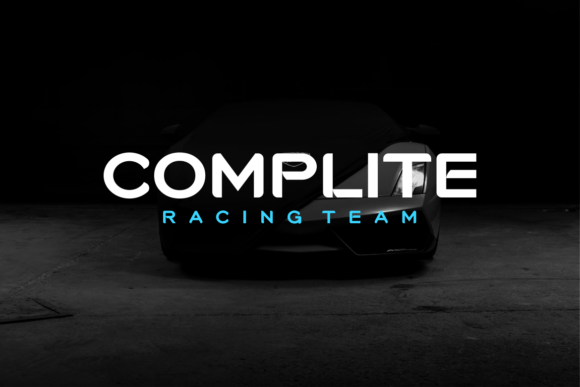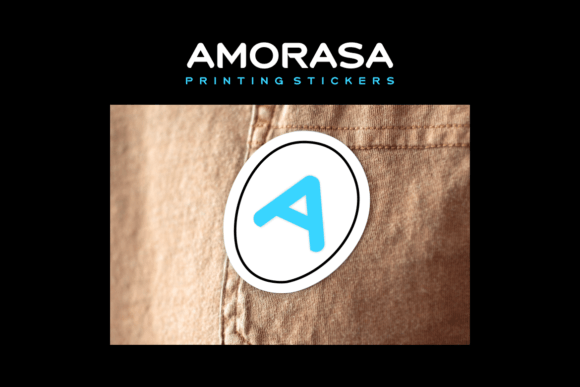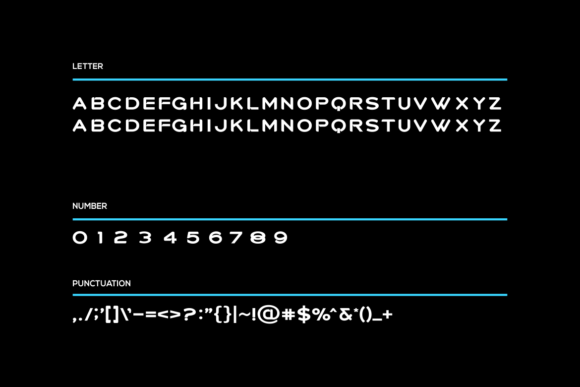
Badeq Font: The Ultimate Asset for Designers and Crafters
Are you tired of using fonts that are cluttered and difficult to read? Look no further than the Badeq Font, a clean and simple display font that is perfect for showcasing your work. As a designer or crafter, you know how important it is to have a font that is both visually appealing and easy to use. In this article, we’ll take a closer look at the Badeq Font and its features, and explore why it’s become a top choice for designers and crafters alike.
A Clean and Simple Design
The Badeq Font is a beautifully designed font that is perfect for displaying your work in a clean and simple way. Its straightforward appearance makes it easy to read and understand, and its simplicity ensures that it won’t distract from the content it’s being used to display. Whether you’re a designer, crafter, or artist, the Badeq Font is a great choice for showcasing your work in a professional and elegant way.
Features Overview
The Badeq Font comes with a range of features that make it easy to use and versatile. Here are some of the key features:
• Simple appearance: The font has a clean and simple design that is easy to read and understand.
Why Choose the Badeq Font?
So why choose the Badeq Font over other fonts available? Here are just a few reasons:
• Nice display font: The Badeq Font is specifically designed as a display font, making it perfect for showcasing your work in a professional and elegant way.
• Clean and simple: The font’s clean and simple design ensures that it won’t distract from the content it’s being used to display.
Font Name Badeq Font
Author brahamb78
In conclusion, the Badeq Font is a clean and simple display font that is perfect for designers and crafters who want to showcase their work in a professional and elegant way. With its range of features, including OTF and TTF formats, simple appearance, and ease of use, it’s no wonder that it’s become a top choice for designers and crafters alike. Whether you’re looking for a font for a specific project or just want a reliable font for future use, the Badeq Font is definitely worth considering.